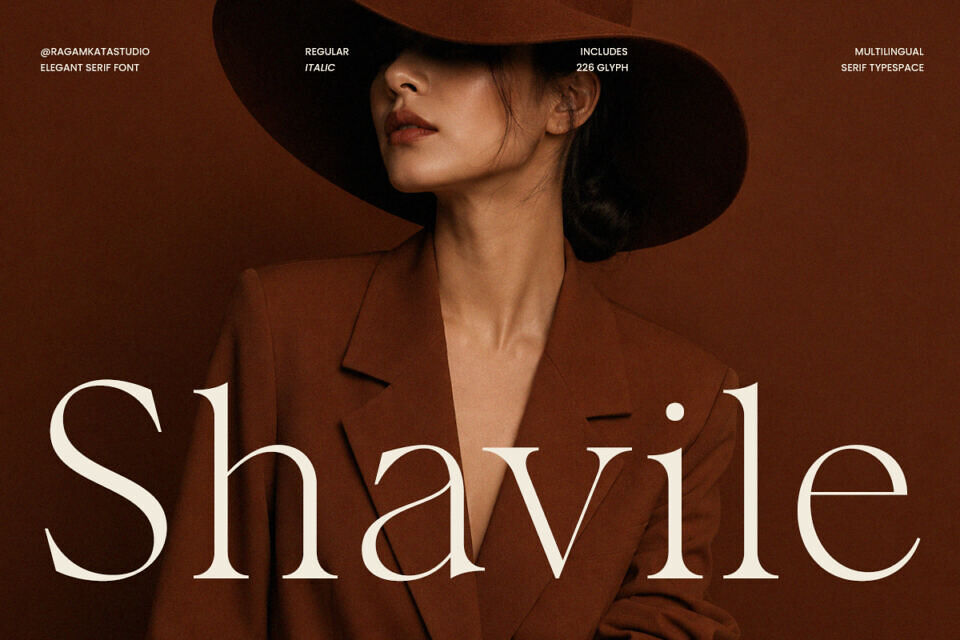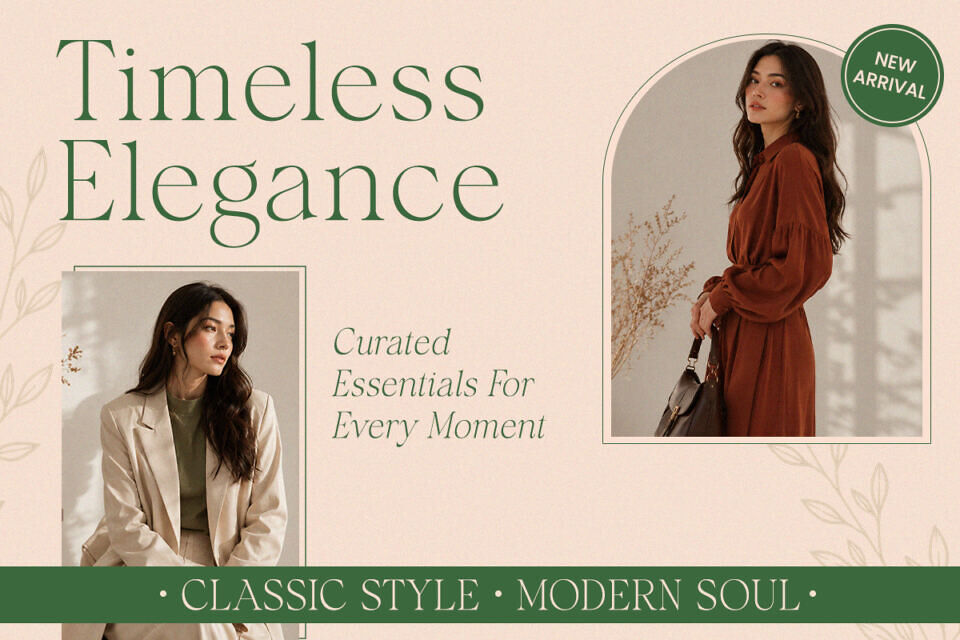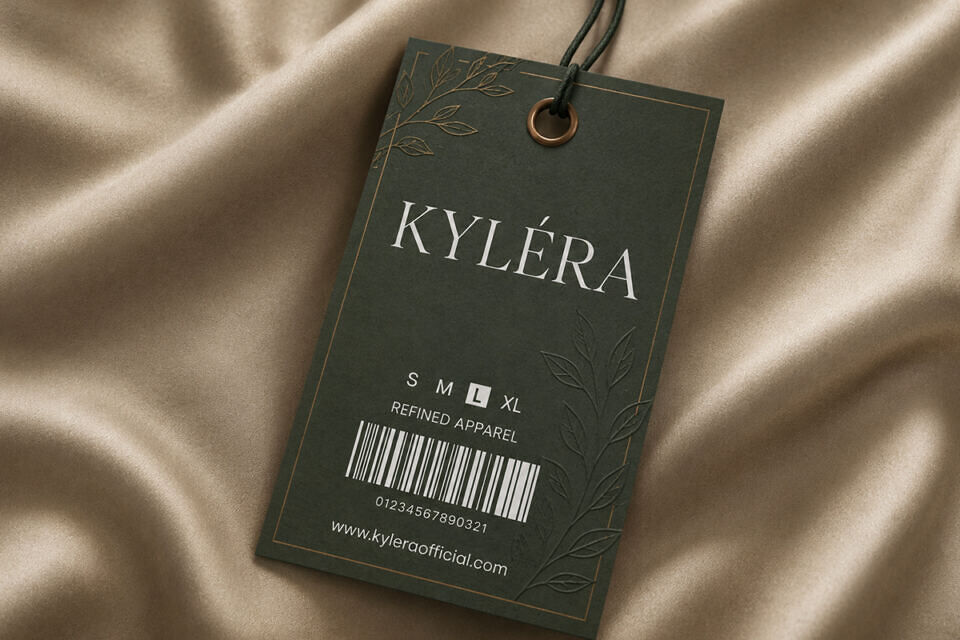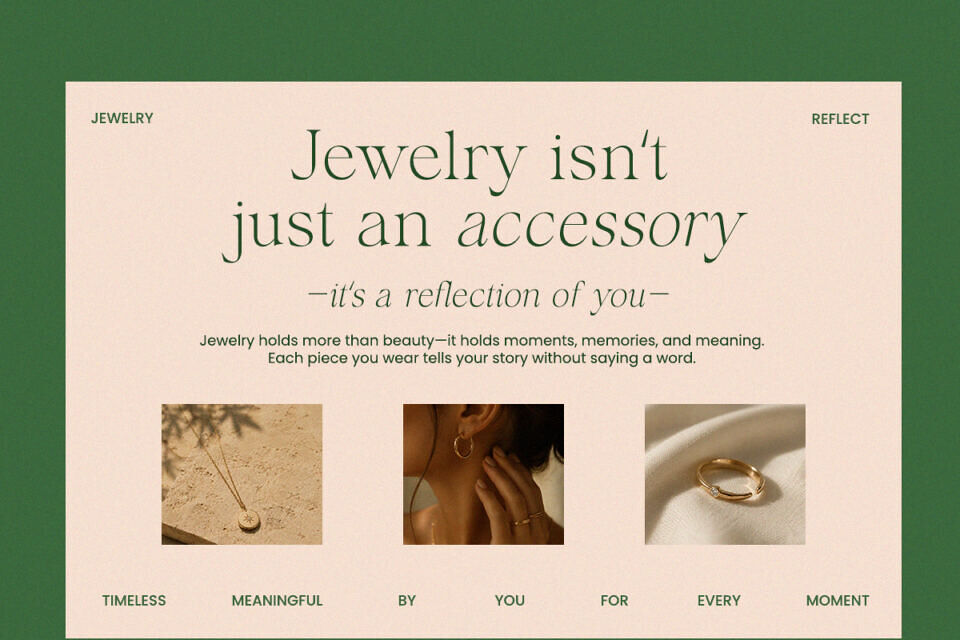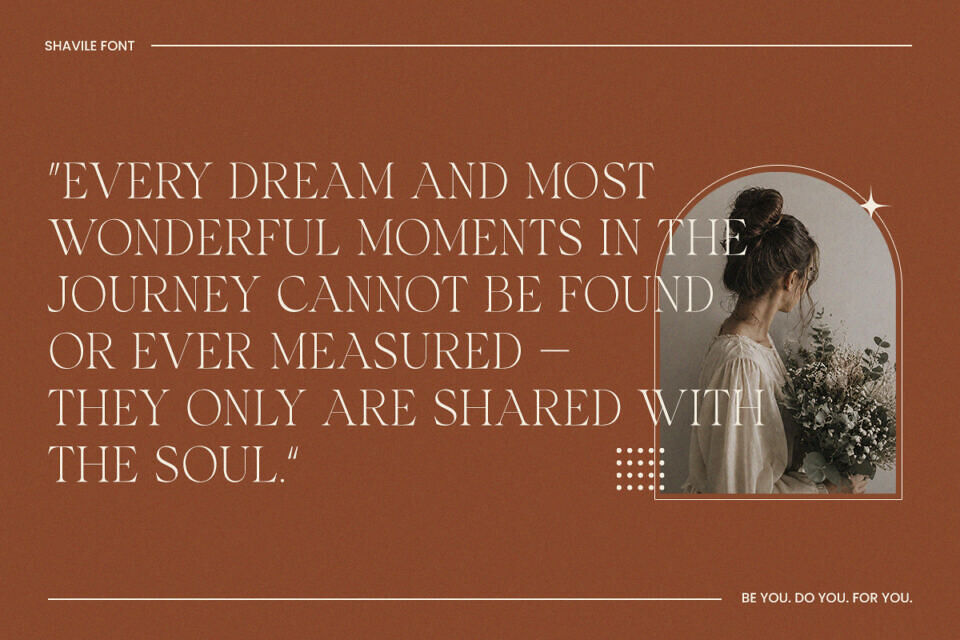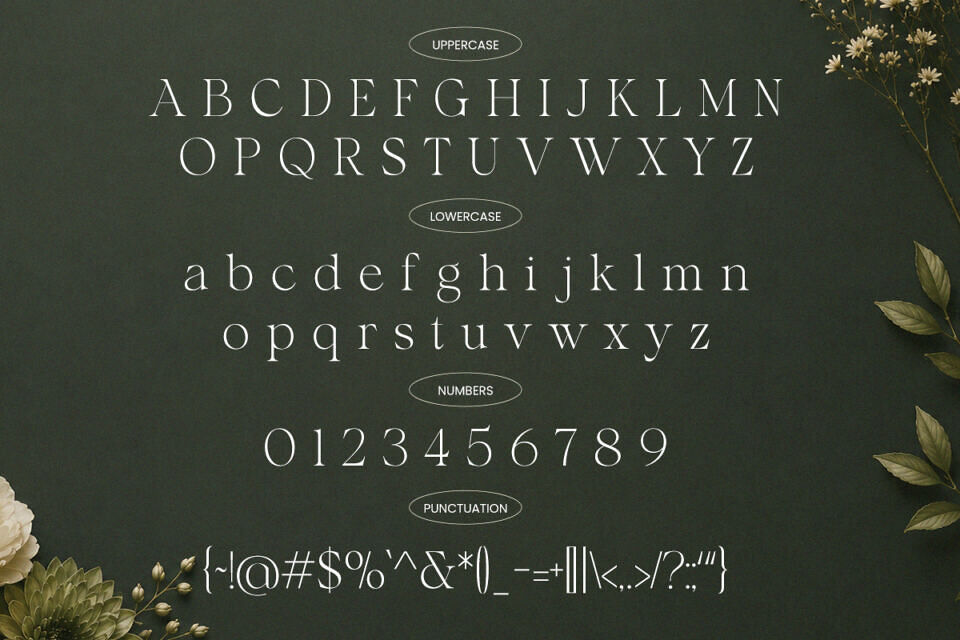
Shavile is an elegant fashion serif font crafted for luxury branding, high-end editorial design, and sophisticated visual storytelling. With its graceful letterforms, refined contrast, and timeless serif character, this typeface captures the essence of premium fashion houses, couture campaigns, beauty packaging, and modern lifestyle branding. Designed to radiate elegance and confidence, Shavile transforms every word into a statement of style.